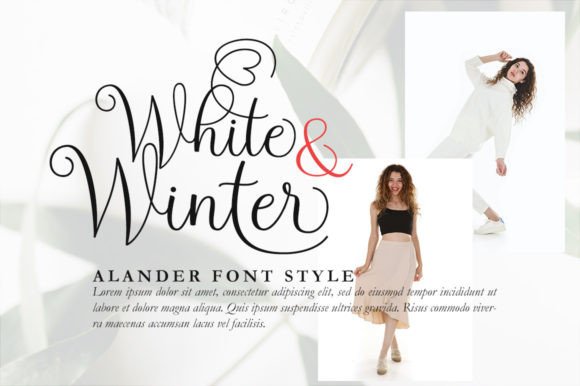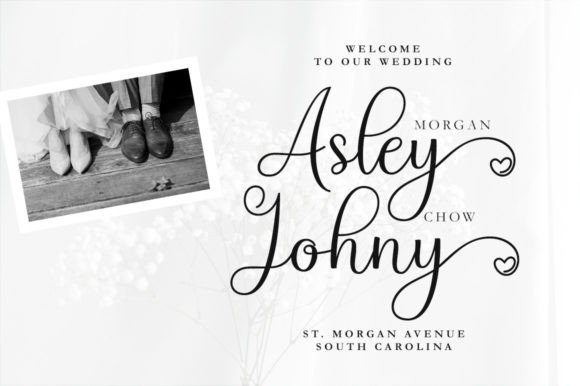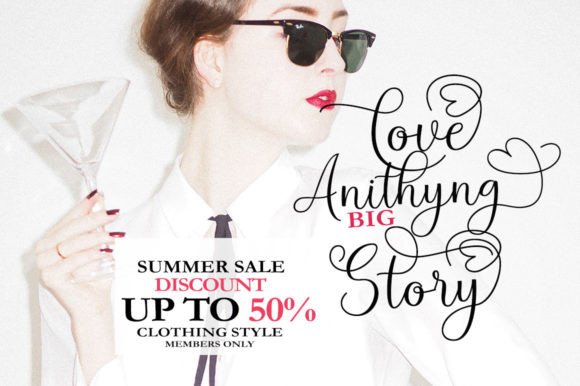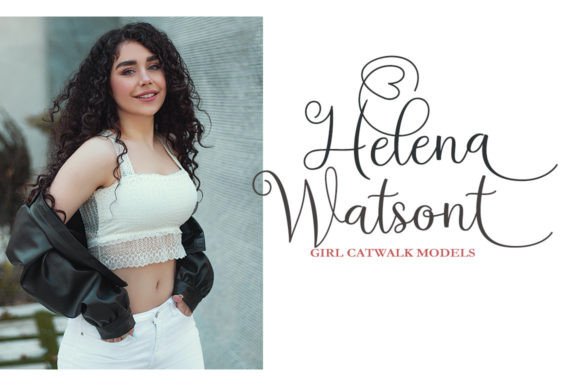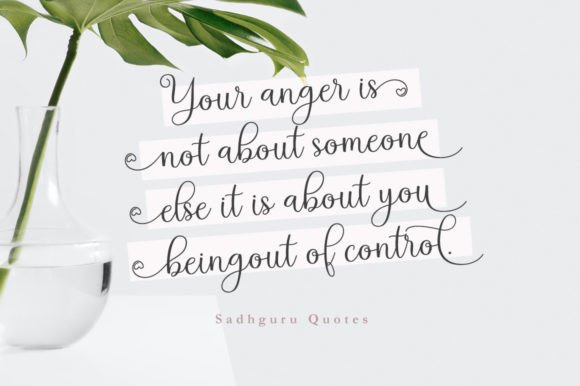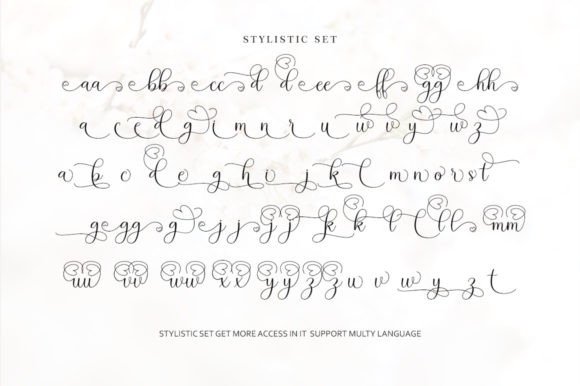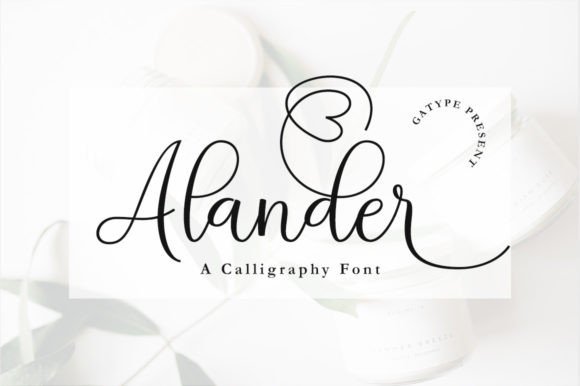
The Alander Font: A Timeless Beauty for Your Creative Projects
I’ll never forget the time I was working on a wedding invitation project, and my client asked me to create a custom design that exuded elegance and sophistication. I spent hours scouring the internet for the perfect font, but nothing seemed quite right. That was until I stumbled upon the Alander font. Its flowing strokes and delicate curves instantly caught my eye, and I knew I had found the one. In this article, I’ll share my experience with the Alander font, its features, and how to make the most of it in your creative projects.
A Closer Look at Alander
The Alander font is a stunning handwritten font that exudes beauty and refinement. Its intricate details and unique flourishes add a touch of sophistication, making it perfect for invitations, logos, and any project in need of a touch of grace and refinement.
Here’s what I love about the Alander font:
- ✨ Effortless elegance: The font’s flowing strokes and delicate curves create a beautiful, refined look that’s perfect for high-end projects.
- ✅ PUA encoded: The font is PUA encoded, making it easy to access all the amazing glyphs and ligatures.
- 🔥 Unique flourishes: The font’s intricate details and unique flourishes add a touch of sophistication to any project.
And here are some small quirks or limitations:
- 🤔 Limited use cases: While the font is versatile, it’s not suitable for body text or long-form content. It’s best used for titles, headings, or short paragraphs.
The Story Behind Alander
The Alander font was designed by a talented type designer who’s passionate about creating beautiful, elegant fonts. Inspired by traditional calligraphy and handwriting, the designer aimed to create a font that’s both refined and sophisticated. With its intricate details and unique flourishes, the Alander font is a testament to the designer’s skill and craftsmanship.
| Font Name | Alander Font |
| Author | gatype |
| What is the Alander font? | The Alander font is a stunning handwritten font that exudes beauty and refinement. Its flowing strokes and delicate curves create an effortless elegance, while its intricate details and unique flourishes add a touch of sophistication. |
| Is the Alander font PUA encoded? | Yes, the Alander font is PUA encoded, making it easy to access all the amazing glyphs and ligatures. |